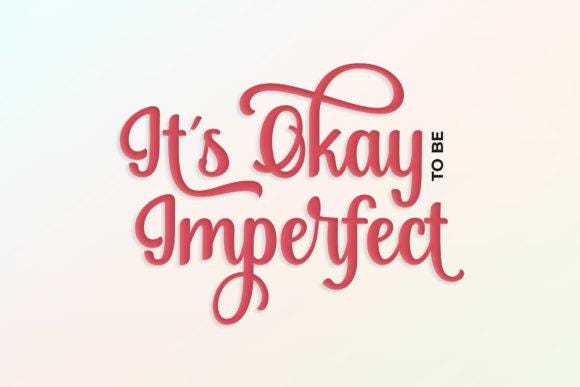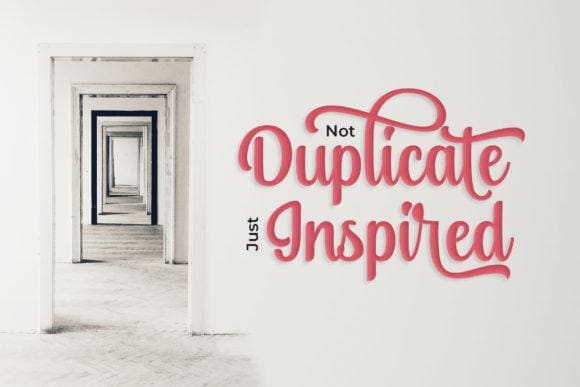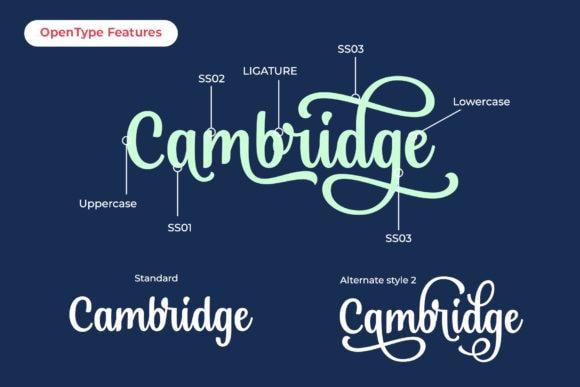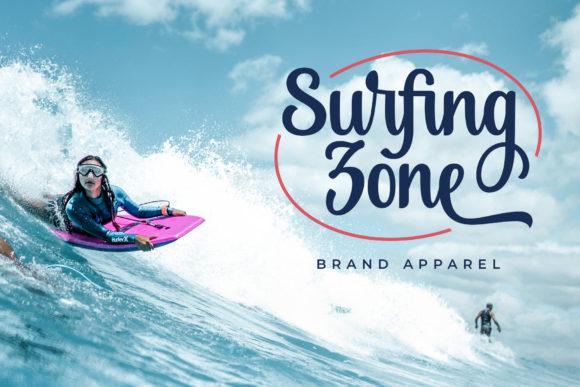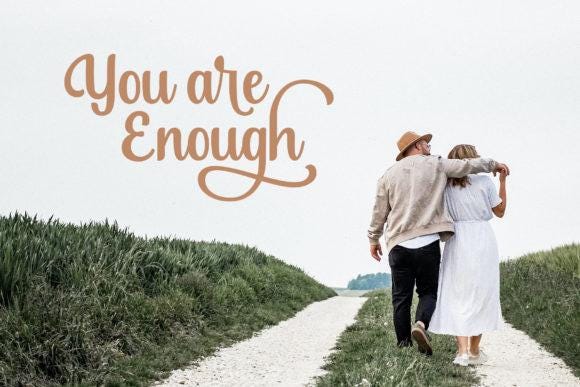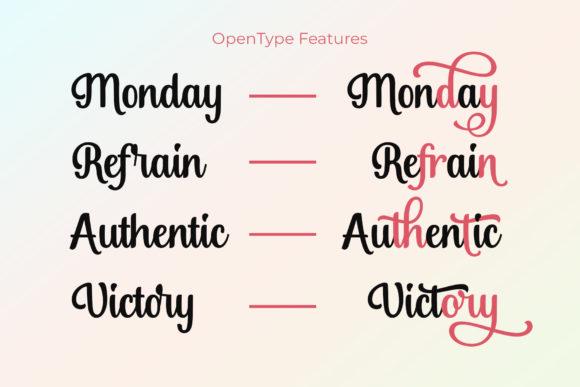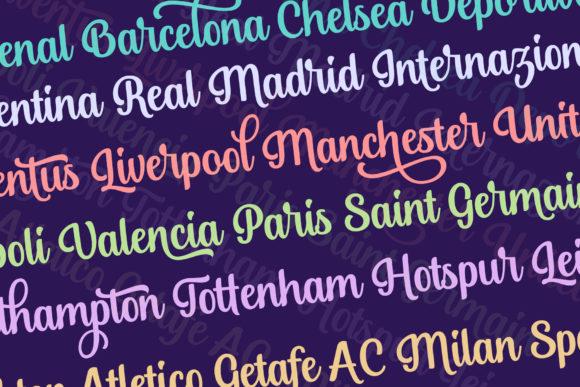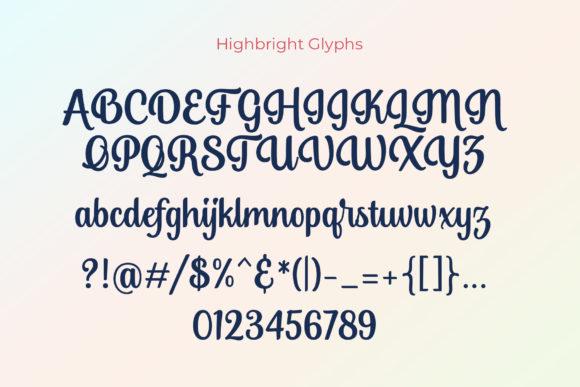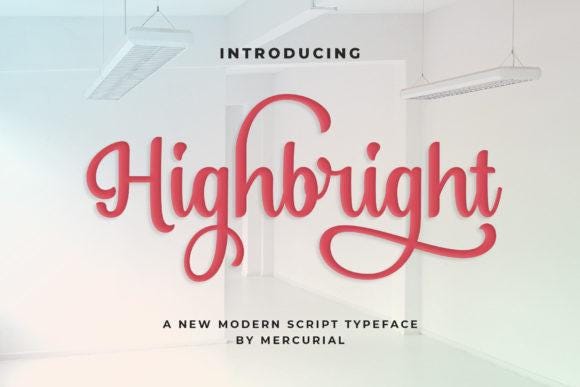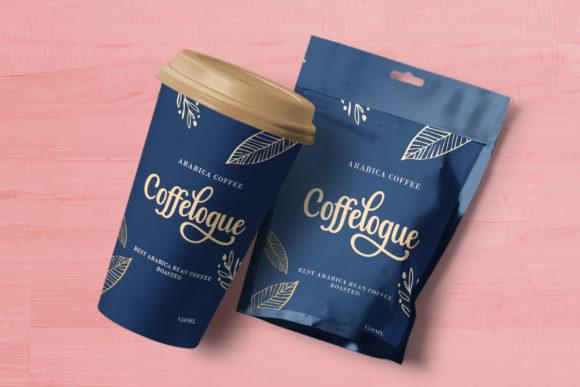
Highbright Font Font
Highbright is a beautiful, well-balanced, and vintage-styled script font. It is defined by smooth curves and is perfect for fashion branding or editorial designs. Highbright is PUA encoded, which means you can access all of the glyphs and swashes with ease!